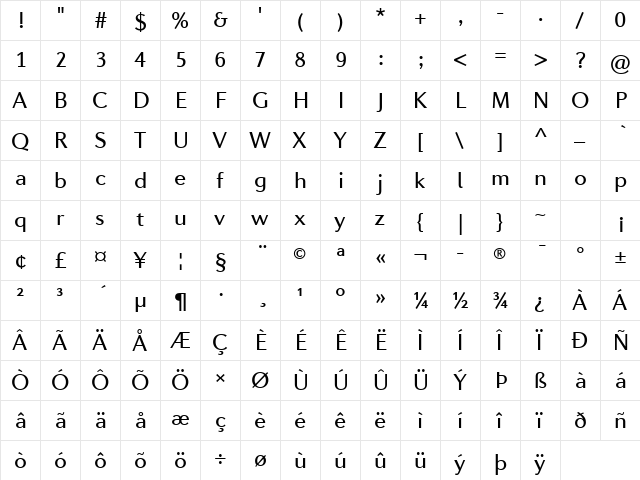
Diverda Sans Com Regular Font Preview
Diverda Sans Com Regular
Diverda Sans Com Regular Font Details
| Foundry | Linotype GmbH |
| Designer | Daniel Lanz |
Design Context for Diverda Sans Com Typeface
Diverda Sans Com is a composed and adaptable typeface that performs quietly and consistently across a wide range of design contexts.